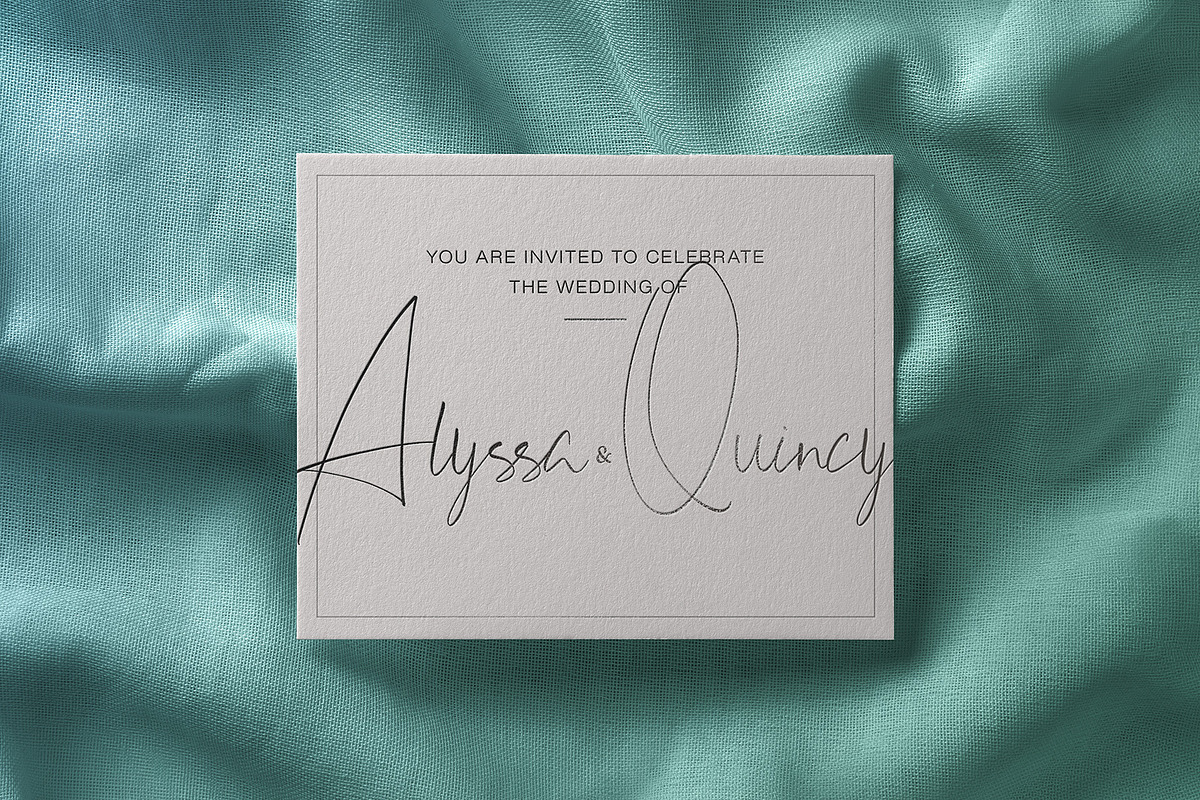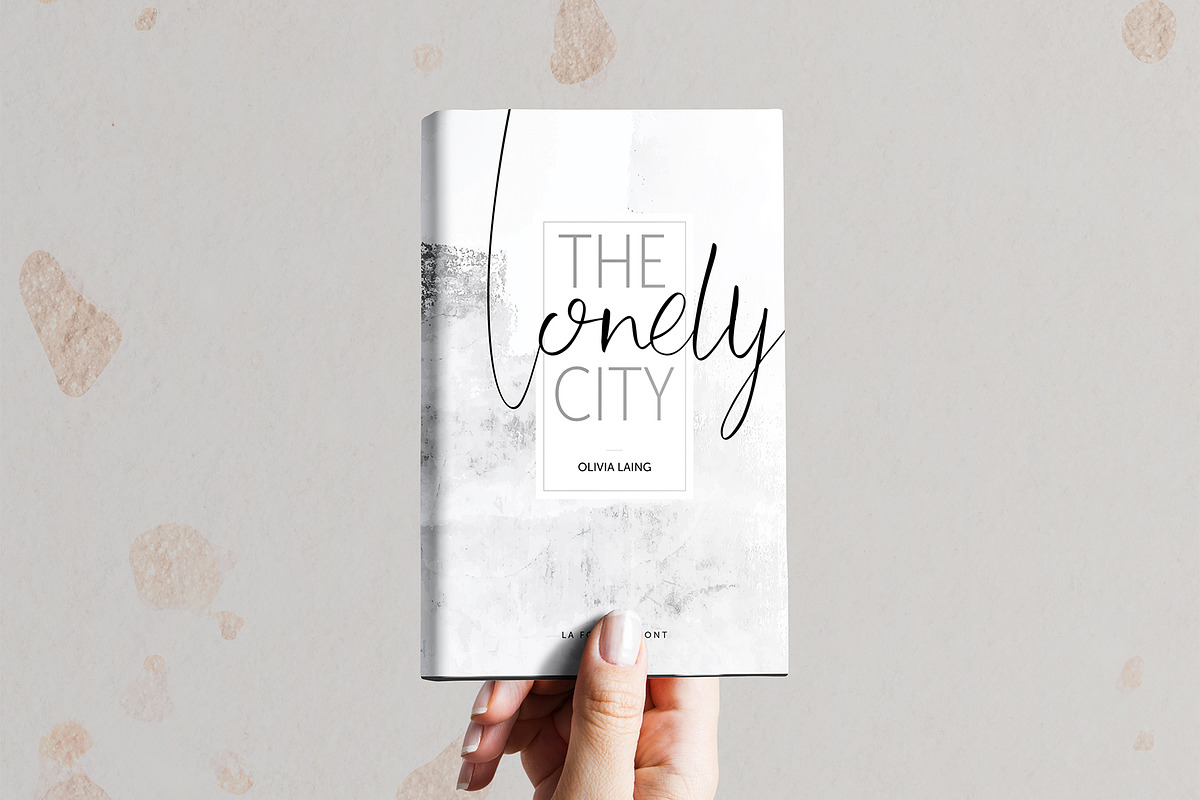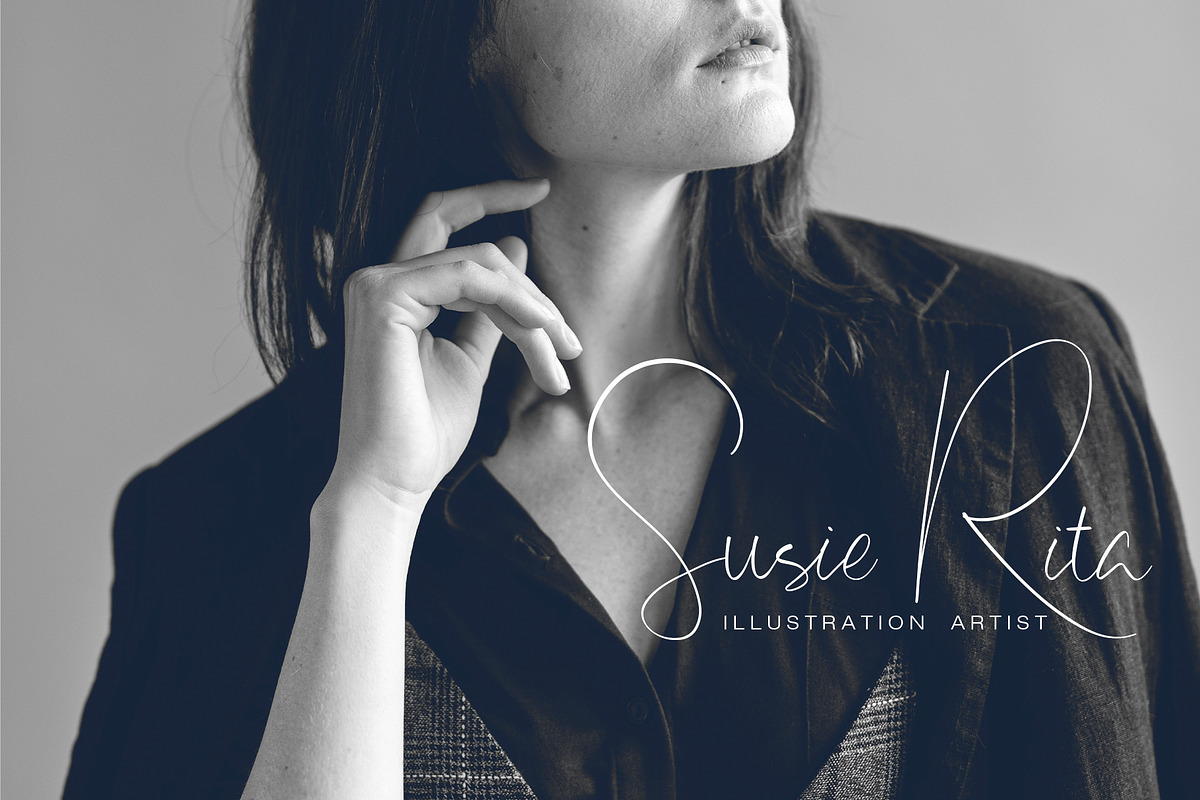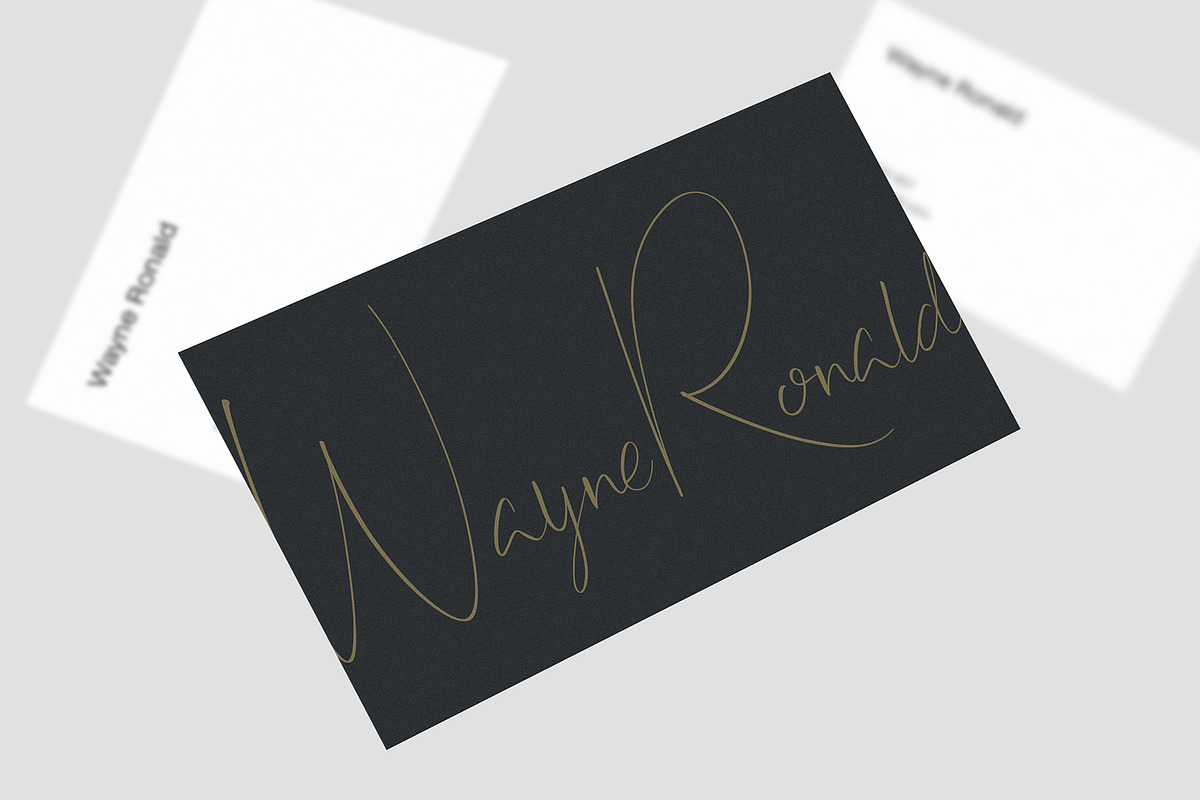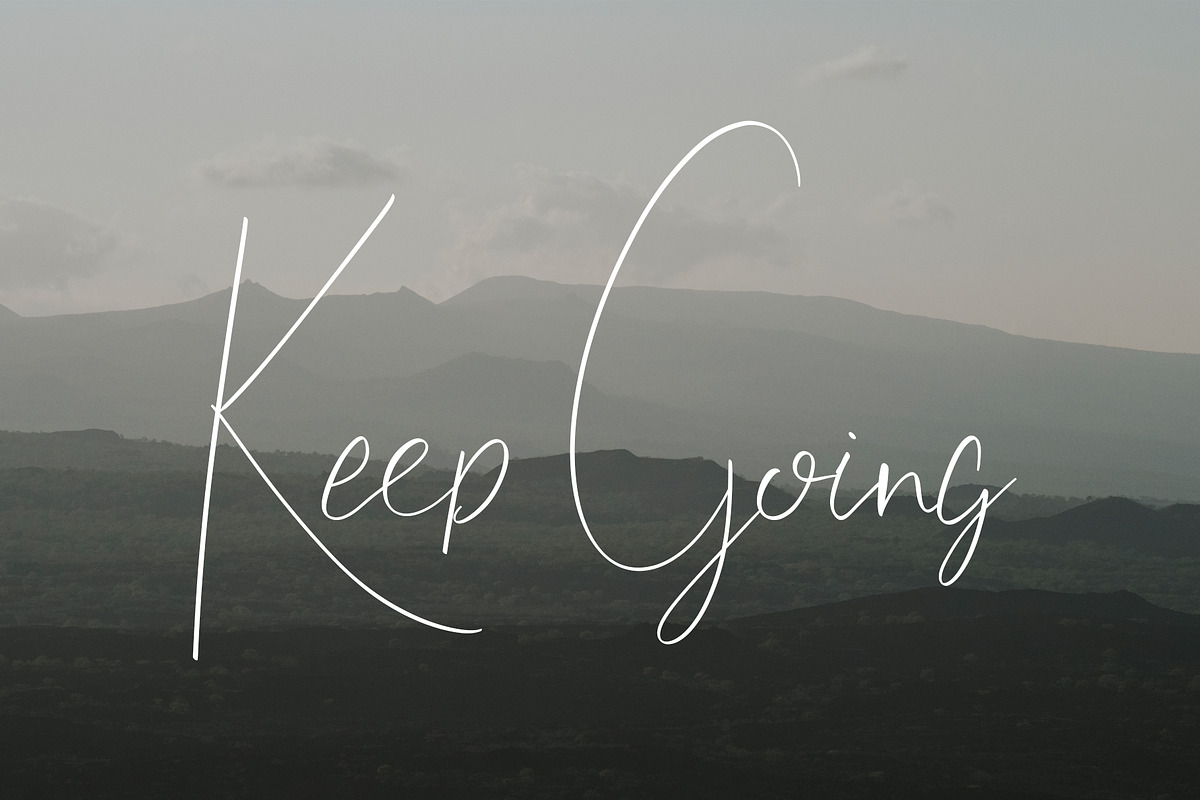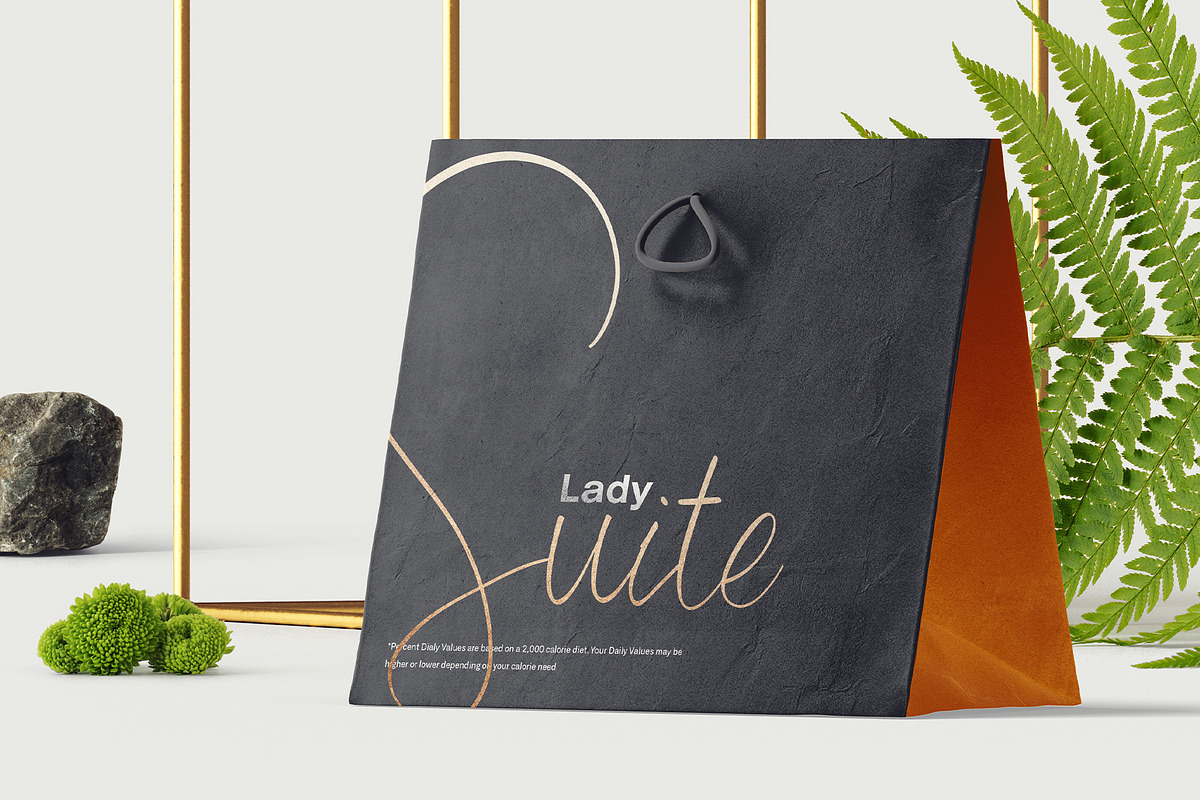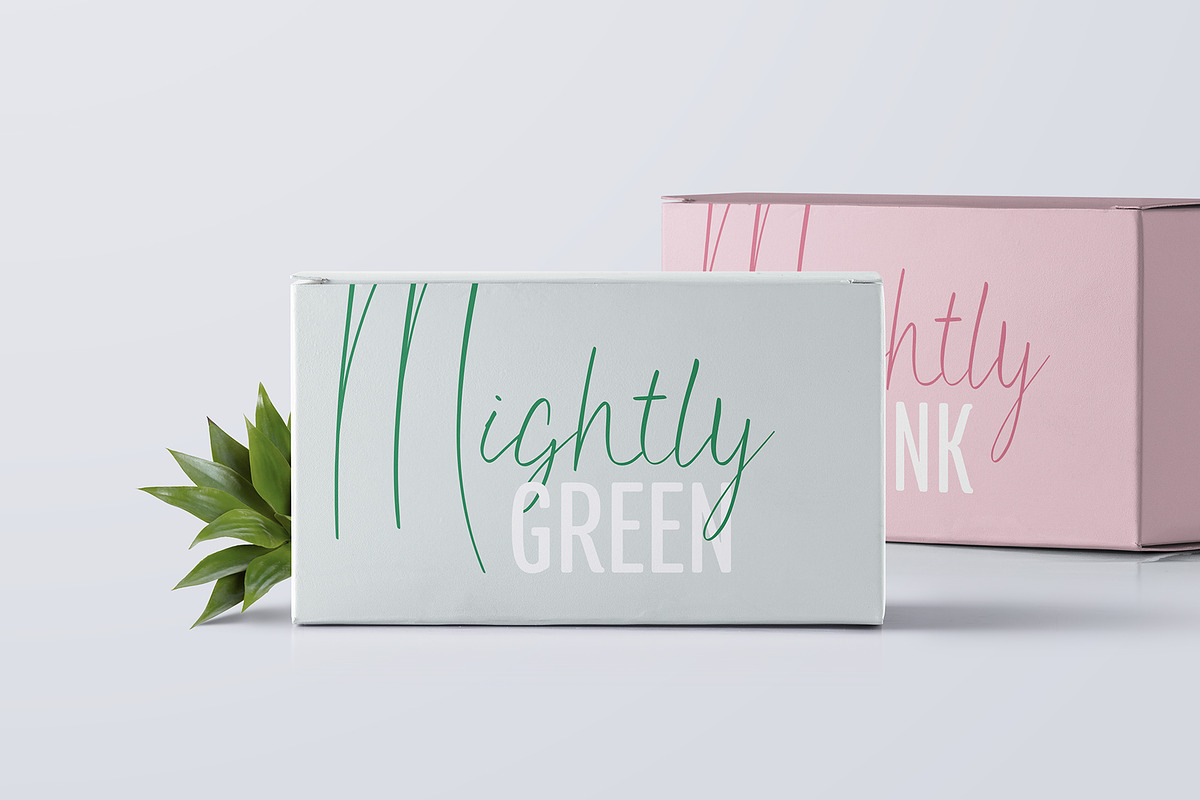
La Fortuna / Stylish Signature Font
La Fortuna is a stylish modern calligraphy font with casual chic flair. It is perfect for branding, wedding invites and cards, and maybe for red wine label.